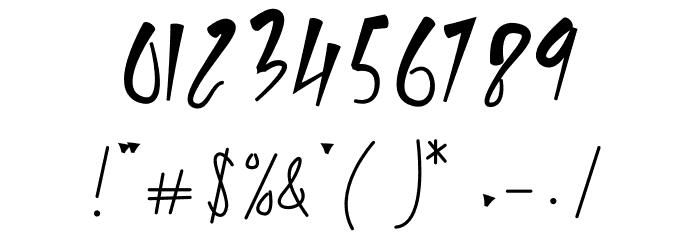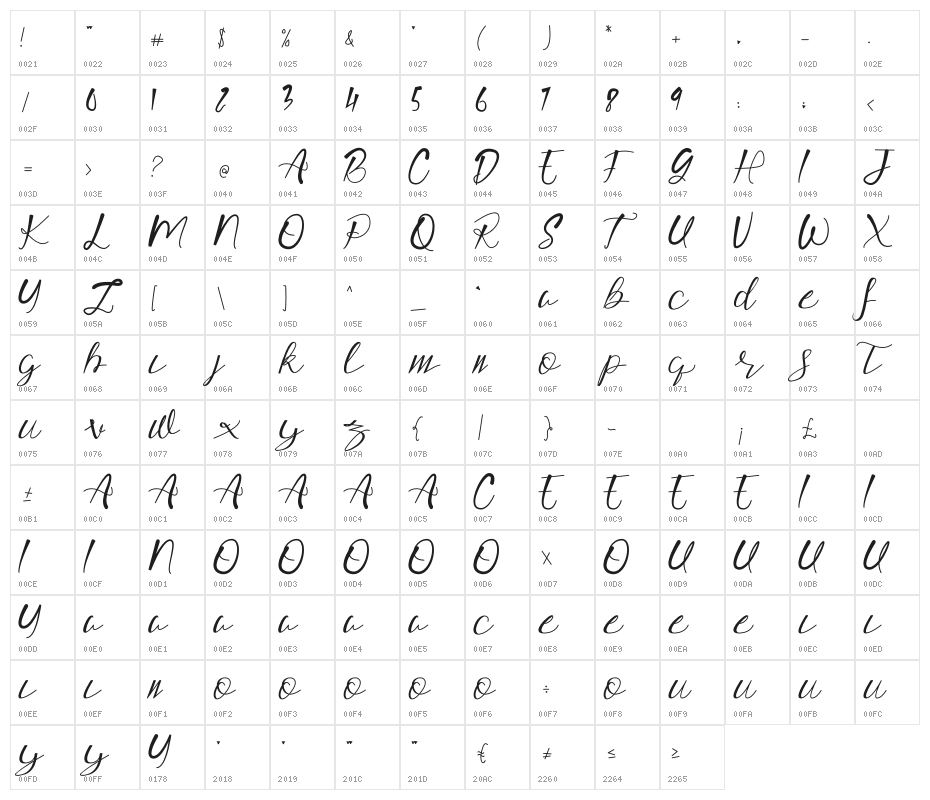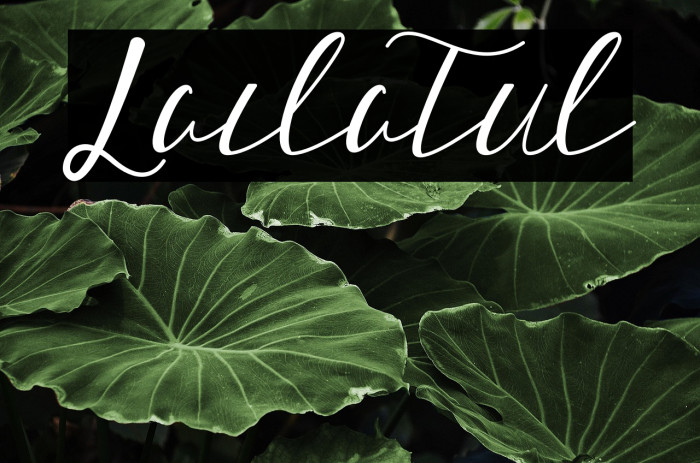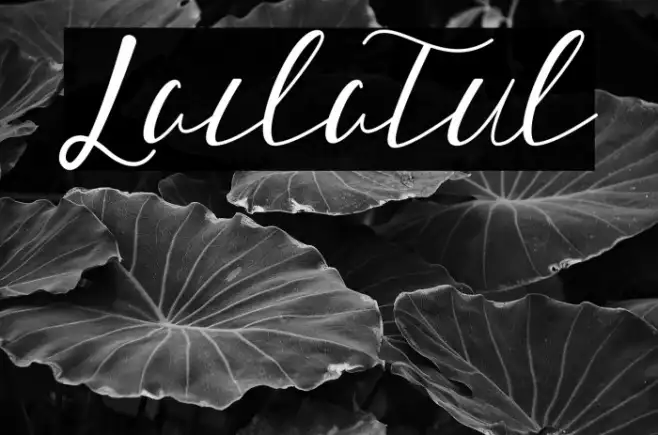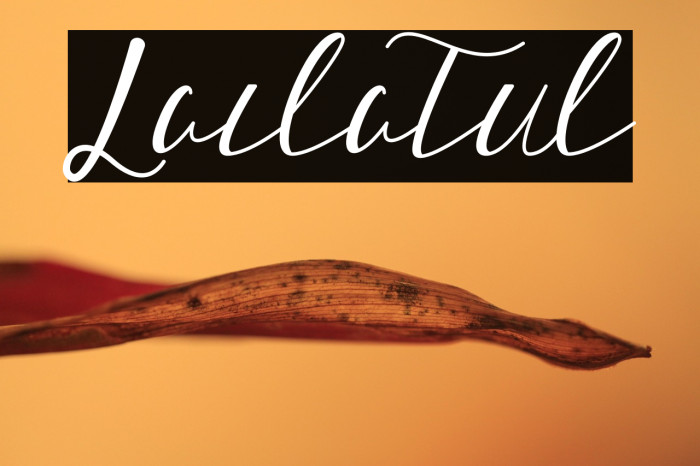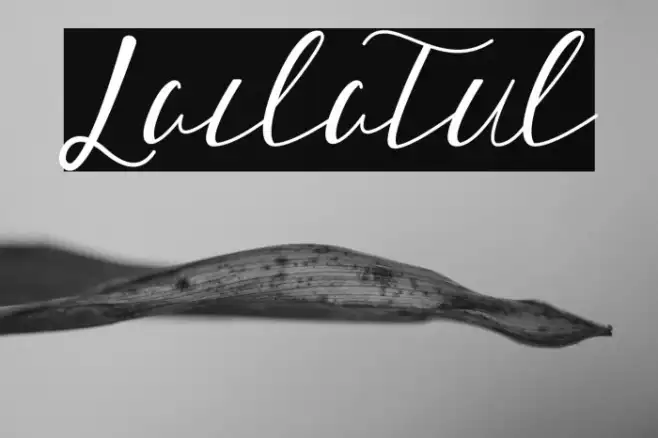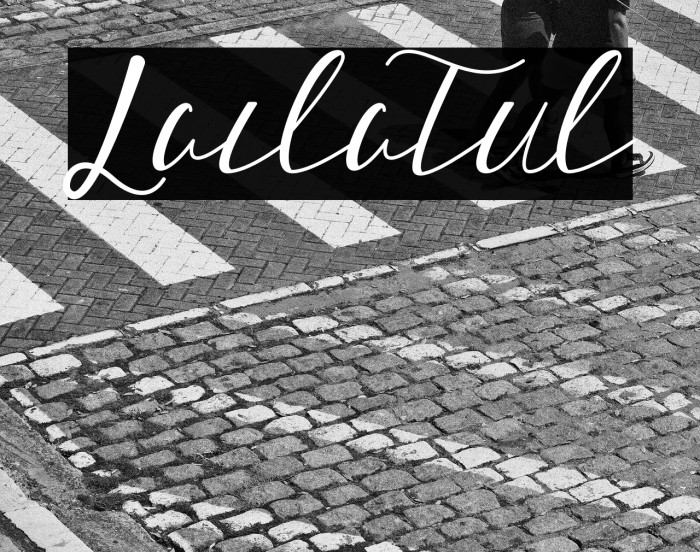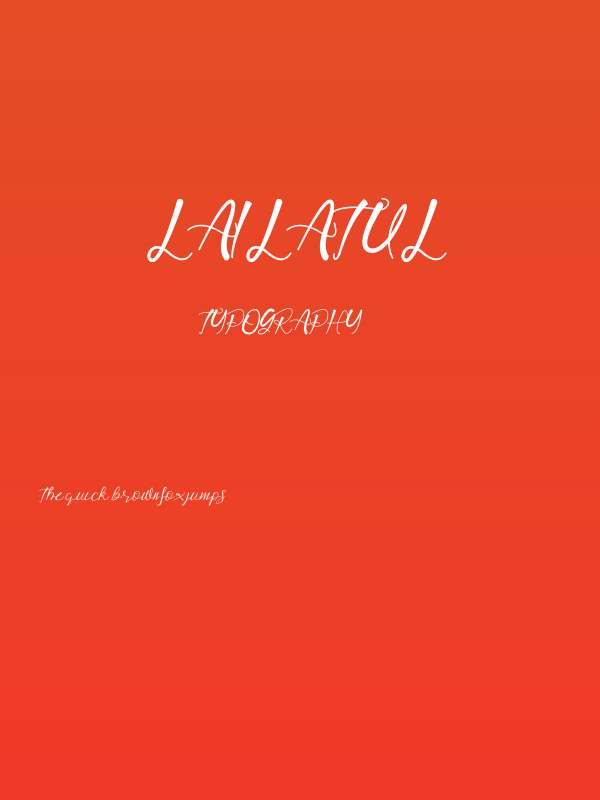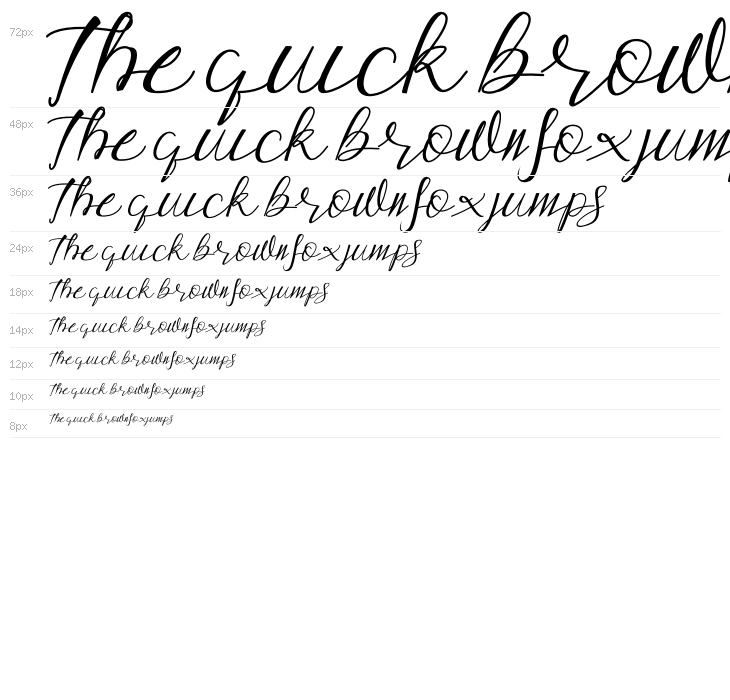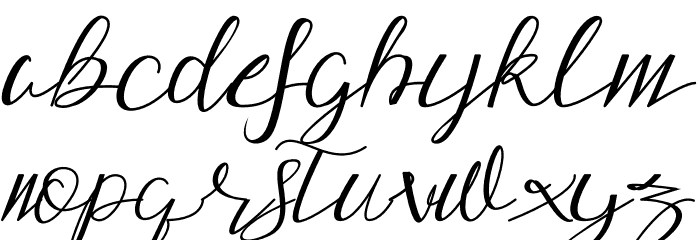
Lailatul Font
Lailatul Description
This font features an elegant and flowing script style, characterized by its smooth, cursive strokes and a handwritten appearance. The uppercase letters are bold and expressive, with a slight slant that adds a dynamic feel. The lowercase letters maintain a consistent flow, enhancing readability while retaining a personal touch. Numbers and special characters follow the same fluid design, ensuring a cohesive look across all text elements. This font is perfect for projects that require a personal, artistic touch, such as invitations, greeting cards, or branding materials.
| Overall Style | Elegant, Artistic |
| Use Case | Headlines, Invitations, Artistic projects |
| Proposed Projects | Ideal for wedding invitations, personal branding, greeting cards, and artistic projects. |